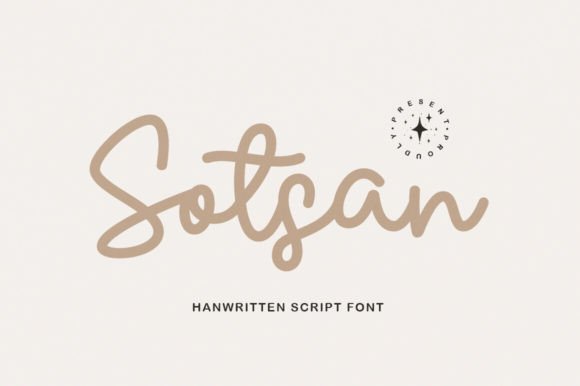
Embrace the artistry of Sotsan, a captivating script font that weaves a tapestry of emotions with its elegant strokes and enchanting curves. Let your designs blossom with the allure of Sotsan, a font crafted with meticulous attention to detail, exuding a symphony of sophistication and charm.
Unleash your creativity and embark on a typographic journey like no other. Sotsan's graceful lines dance across the page, evoking a sense of whimsy and delight. Its enchanting allure captivates the eye, leaving an indelible mark on the hearts of your audience.
With Sotsan, your designs will radiate a timeless elegance that transcends trends. Its versatility knows no bounds, adapting seamlessly to a myriad of projects, from branding materials that exude professionalism to social media posts that pop with personality. Create eye-catching quotes that resonate with your audience, leaving them inspired and engaged.
Sotsan's versatility extends to the realm of invitations, transforming them into exquisite works of art. Whether it's a wedding, a corporate event, or a special celebration, Sotsan adds a touch of magic that elevates the occasion. Its flowing characters add a touch of elegance to business cards, leaving a lasting impression on potential clients.
Step into the world of Sotsan and discover a font that ignites your imagination and fuels your creativity. Its captivating beauty will elevate your designs, leaving your audience mesmerized and yearning for more.